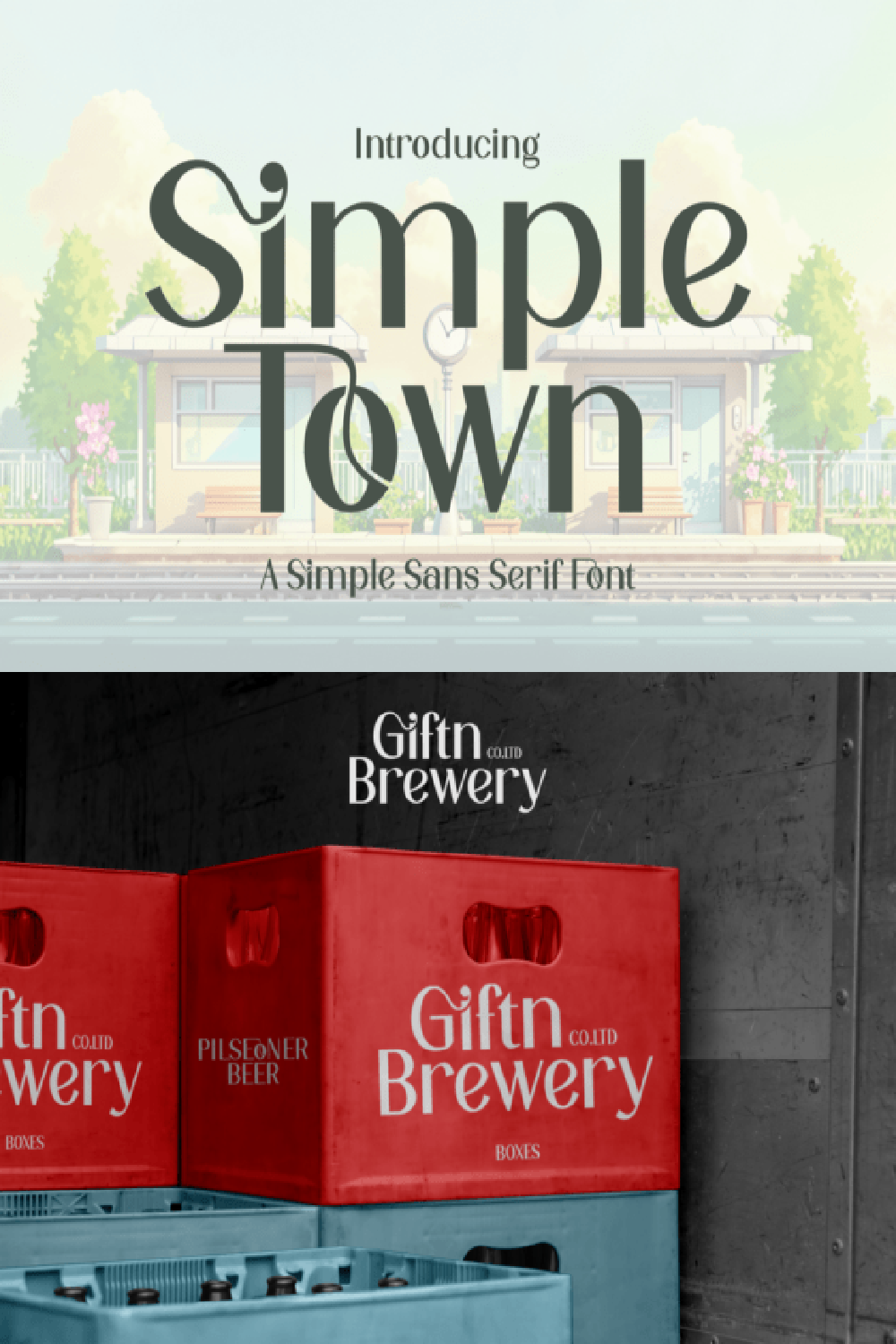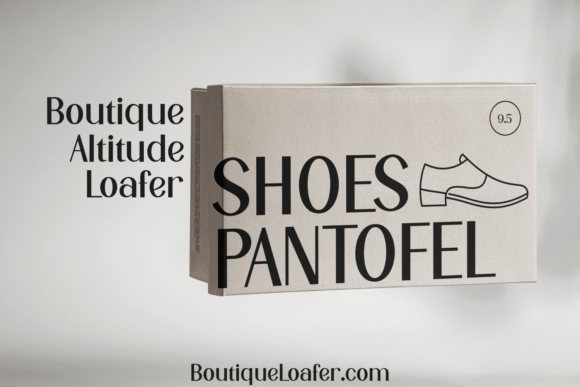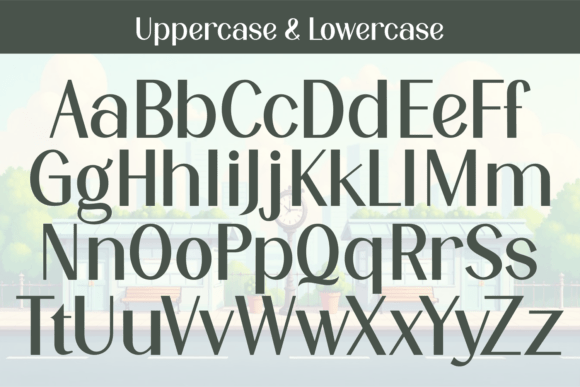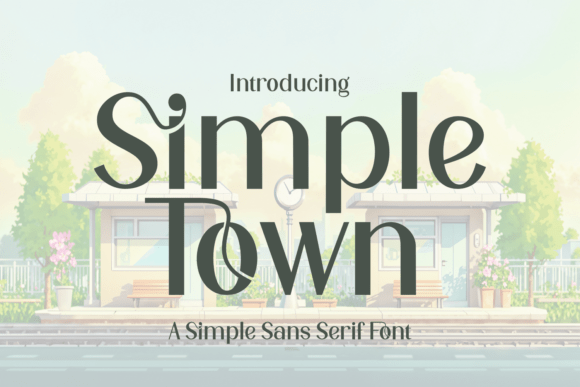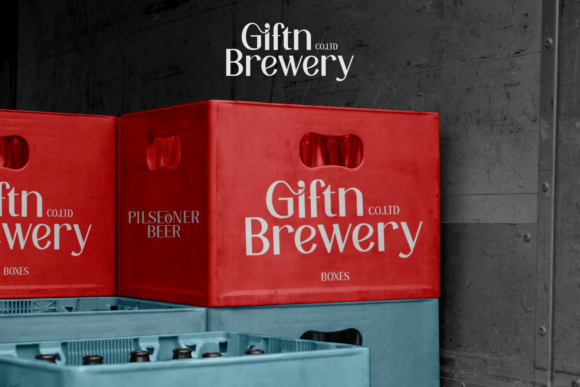
Simple Town Font
About the Simple Town Font
The wait is over! The incredible Simple Town Font is now available for your design toolkit. “Simple Town” is a simple, sans-serif font with smooth curves and artistic letterforms.
The lowercase letters feature subtle flourishes, adding sophistication while maintaining readability.Simple yet artistic font suitable for both headlines and body text.